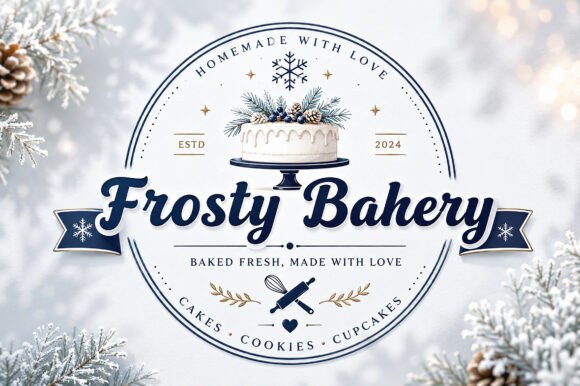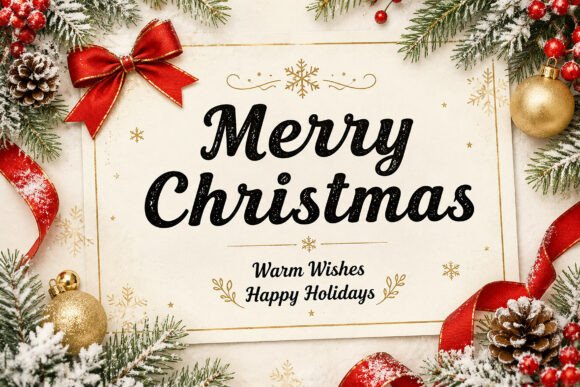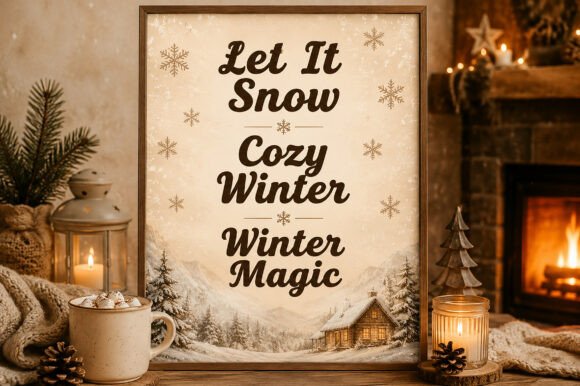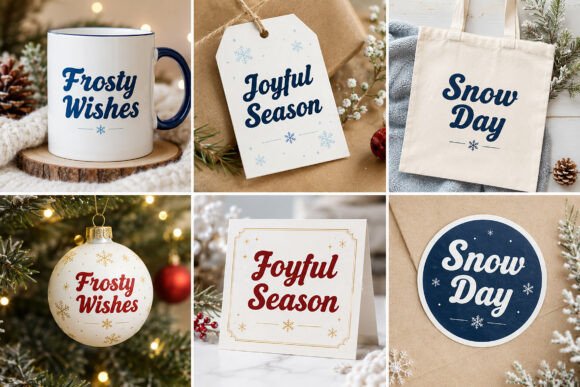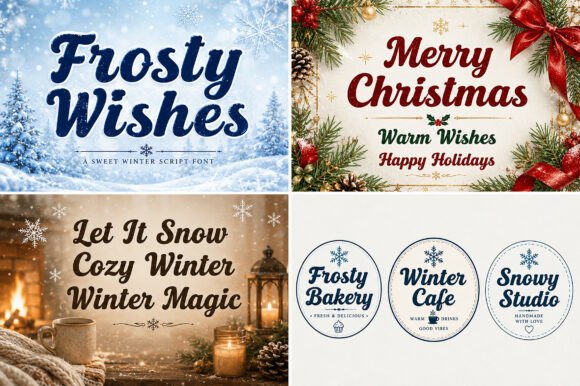
Frosty Wishes Font: Add a Touch of Winter Elegance to Your Holiday Designs
As the holiday season approaches, designers and crafters are on the lookout for the perfect font to add a touch of magic to their creative projects. Look no further than Frosty Wishes, a charming and festive Christmas script font that’s sure to bring warmth, joy, and holiday cheer to your designs. With its smooth curves, playful swashes, and cozy handwritten style, Frosty Wishes is the ideal choice for anyone looking to create beautiful and eye-catching seasonal designs.
A Festive Font for Every Project
Frosty Wishes is a versatile font that’s perfect for a wide range of holiday projects, from Christmas cards and holiday invitations to gift tags, winter quotes, festive branding, social media graphics, and printable decorations. Its friendly script style makes it ideal for both personal and commercial projects, helping your designs stand out with a handcrafted holiday feel.
Whether you’re a designer looking to create stunning holiday graphics or a crafter seeking to add a personal touch to your DIY projects, Frosty Wishes has got you covered. Its elegant and refined appearance makes it perfect for creating sophisticated and eye-catching designs that capture the spirit of the season.
Key Features of Frosty Wishes Font
- Smooth Curves: Frosty Wishes features smooth, flowing curves that give it a warm and inviting feel.
- Playful Swashes: Add a touch of whimsy to your designs with Frosty Wishes’ playful swashes and flourishes.
- Cozy Handwritten Style: This font’s cozy handwritten style makes it perfect for creating designs that feel personal and handcrafted.
- Friendly Script Style: Frosty Wishes’ friendly script style is ideal for creating designs that are both elegant and approachable.
Why Choose Frosty Wishes Font?
So why choose Frosty Wishes font for your holiday designs? Here are just a few reasons:
- Unique and Eye-Catching: Frosty Wishes is a unique and eye-catching font that’s sure to make your designs stand out.
- Versatile: This font is perfect for a wide range of holiday projects, from Christmas cards to social media graphics.
- High-Quality: This font is of high quality, with smooth curves and clear lines that look great in any design.
- Use it for Headings: Frosty Wishes is perfect for headings and titles, where its elegant and refined appearance can really shine.
- Pair it with Other Fonts: Pair Frosty Wishes with other fonts to create a unique and eye-catching design.
Frosty Wishes font is a charming and festive Christmas script font that’s perfect for adding a touch of winter elegance to your holiday designs. With its smooth curves, playful swashes, and cozy handwritten style, this font is sure to bring warmth, joy, and holiday cheer to your creative projects. Whether you’re a designer or crafter, Frosty Wishes is the ideal choice for anyone looking to create beautiful and eye-catching seasonal designs.